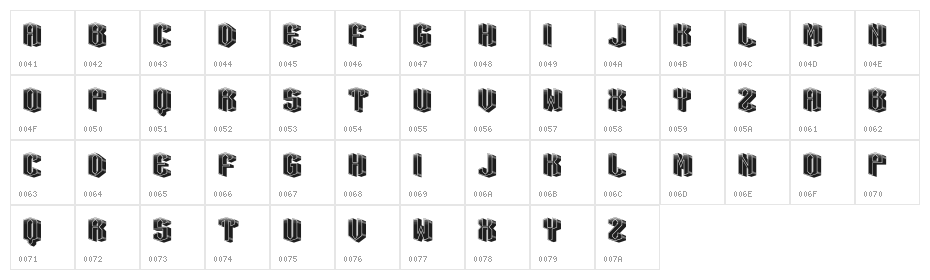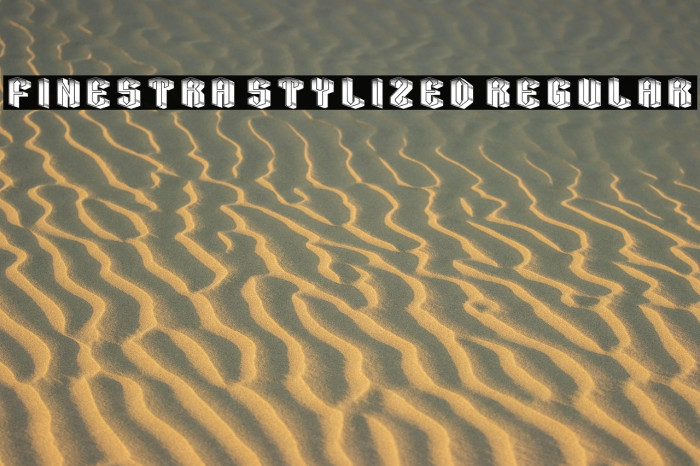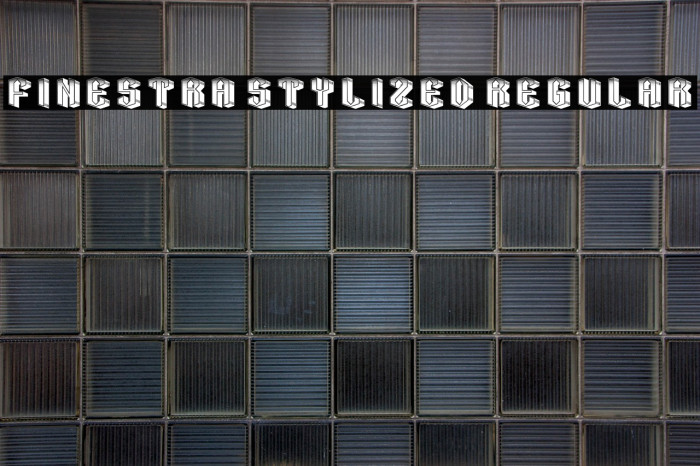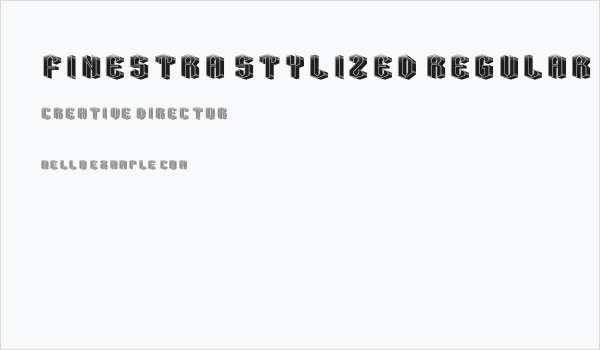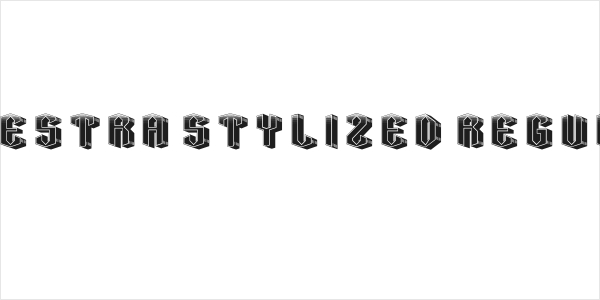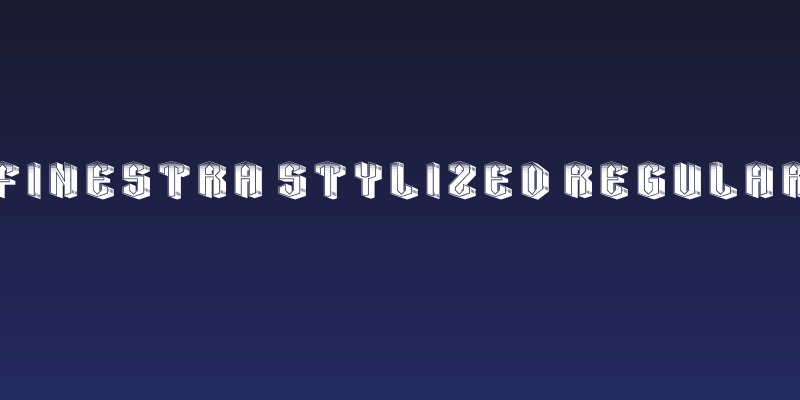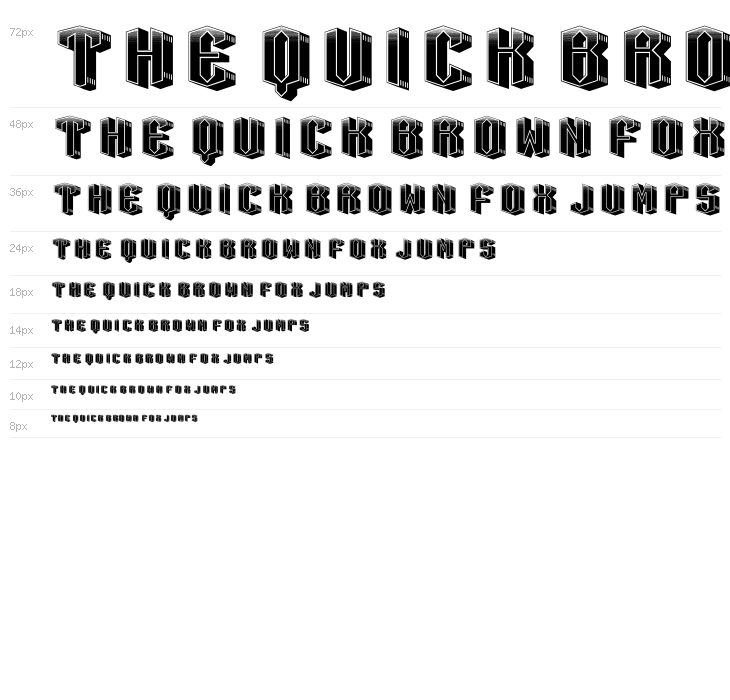
Finestra Stylized Regular Font
Finestra Stylized Regular Description
This font features a bold, three-dimensional design with a distinct geometric style. Each character is crafted with a shadow effect, giving it a striking and dynamic appearance. The letters are constructed with sharp angles and clean lines, creating a sense of depth and movement. The font's unique structure makes it stand out, with a modern and futuristic feel. The use of negative space within the characters adds to its visual interest, making it ideal for eye-catching designs. Its bold presence is perfect for projects that require a strong visual impact.
| Proposed Projects | Ideal for posters, logos, headlines, and branding materials that require a strong visual impact. |